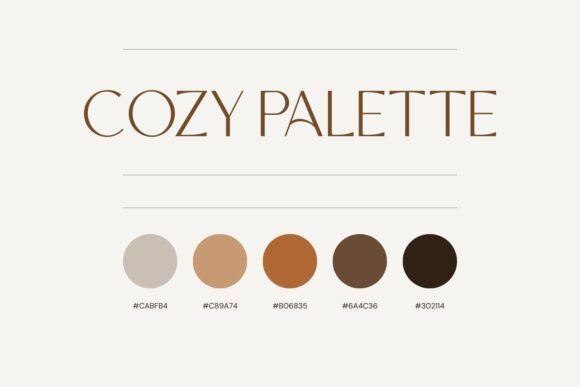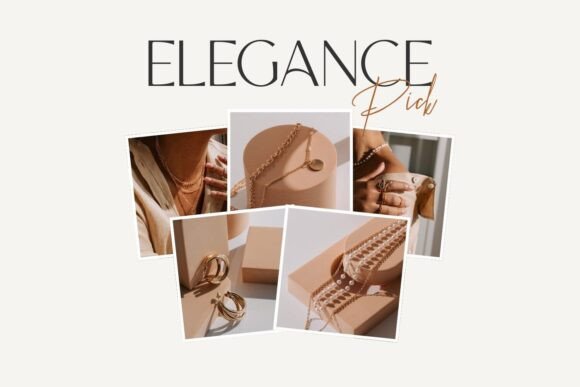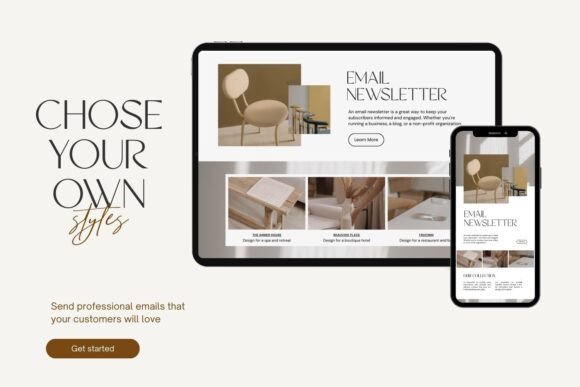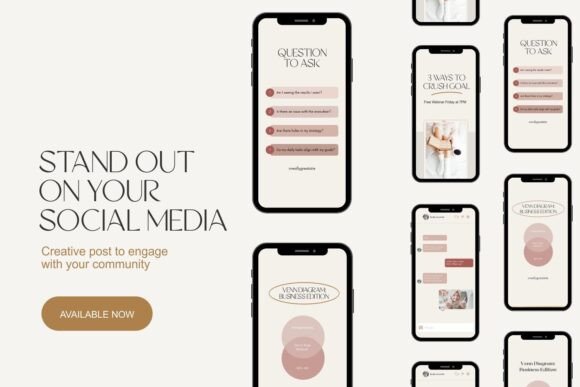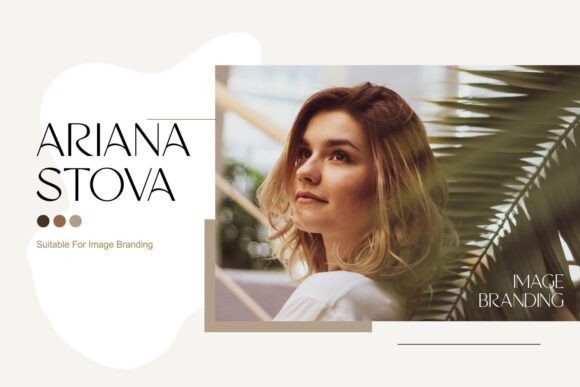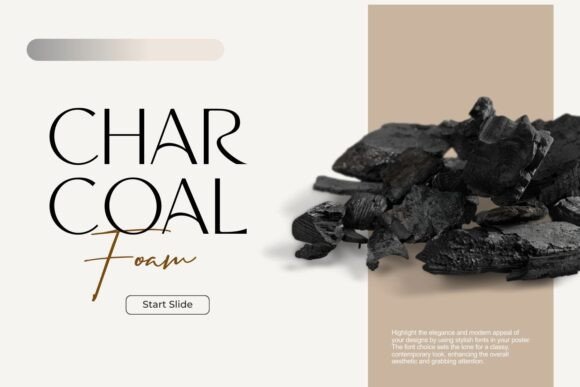
Meet ERIAL: The Ultimate Serif Font for Elegant Designs
In the world of typography, a font can make all the difference in elevating a design from ordinary to extraordinary. Introducing ERIAL, a sophisticated and modern serif font that brings a refined elegance to any project. With its versatile design, ERIAL is perfect for a wide range of applications, from invitations and branding to crafting and digital content creation.
A Timeless Serif with a Luxurious Appearance
ERIAL boasts a classic serif design with a contemporary edge, making it an ideal choice for designers and crafters seeking a font that exudes luxury and sophistication. Its clean lines, delicate details, and elegant curves make it perfect for high-end projects, such as wedding designs, event materials, and formal stationery.
Ideal for Invitations and Events
ERIAL is particularly well-suited for wedding invitations, event materials, and formal designs. Its refined and elegant appearance makes it perfect for:
- Event branding and marketing materials
- Formal event programs and agendas
- Corporate branding and identity
Key Features of ERIAL
So, what makes ERIAL an exceptional font? Here are some of its key features:
- Elegant & Modern Design: A timeless serif with a luxurious appearance, perfect for high-end projects.
- Ideal for Invitations & Events: A refined choice for wedding invites, branding, and formal designs.
- Complete Character Set: Includes uppercase and lowercase letters, numbers, and special characters.
Crafting and Digital Design Made Easy
ERIAL is not just limited to print designs; it’s also perfect for digital content creation. With its smooth lines and elegant curves, this font is ideal for:
- Email newsletters and marketing materials
Why Choose ERIAL?
With so many fonts available, why choose ERIAL? Here are just a few reasons:
- Unique and distinctive: ERIAL’s modern serif design sets it apart from more traditional fonts.
- Versatile: This font can be used for a wide range of applications, from print to digital.
- Elegant and sophisticated: ERIAL exudes luxury and refinement, making it perfect for high-end projects.
In conclusion, ERIAL is a sophisticated and modern serif font that brings a refined elegance to any project. With its versatile design, elegant appearance, and compatibility with various platforms, ERIAL is perfect for designers and crafters seeking a font that can elevate their designs to the next level. Whether you’re working on a wedding invitation, event material, or digital content creation, ERIAL is the perfect choice.